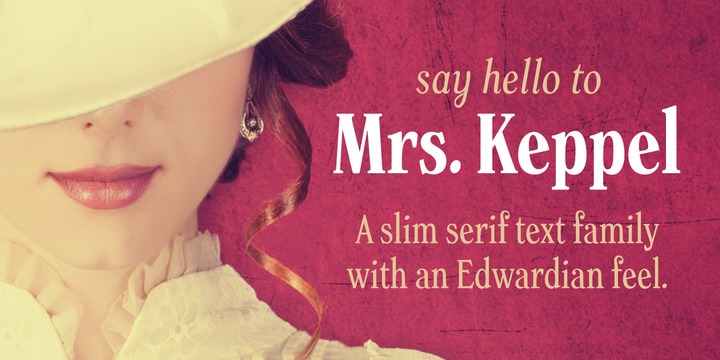
Mrs Keppel Font
Mrs Keppel Font is perfect for vintage wedding invitations, elegant period branding, historical publications, aristocratic event materials, luxury heritage brands, sophisticated stationery design, classical music programs, and distinguished formal communications.
Mrs Keppel Font is exciting because it embodies timeless aristocratic elegance with refined letterforms and sophisticated character details that evoke the grace and distinction of historical high society. Its regal personality creates immediate associations with prestige and cultural refinement that resonates with audiences seeking authentic classical sophistication.
Mrs Keppel Font family includes regular weight with elegant alternates and aristocratic variations, providing designers with comprehensive options for creating distinguished typography solutions that project historical elegance and cultural sophistication.
Design professionals consistently choose Mrs Keppel Font for projects requiring historical authenticity and aristocratic appeal. Its elegant character works magnificently in luxury hospitality venues, cultural events, heritage branding, and upscale marketing campaigns where classical sophistication and aristocratic personality drive customer prestige expectations. The font's regal nature creates memorable luxury experiences that communicate heritage and cultural distinction.
Creative teams appreciate Mrs Keppel Font's ability to communicate historical authenticity and aristocratic sophistication in competitive luxury markets. Its distinguished styling transcends contemporary design trends while maintaining the elegance required for heritage positioning, making it an essential tool for organizations seeking to establish lasting prestige through superior aristocratic typography and exceptional cultural communication.